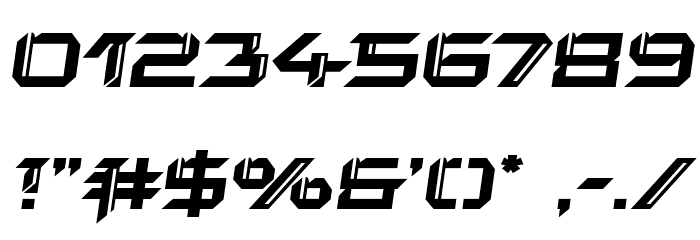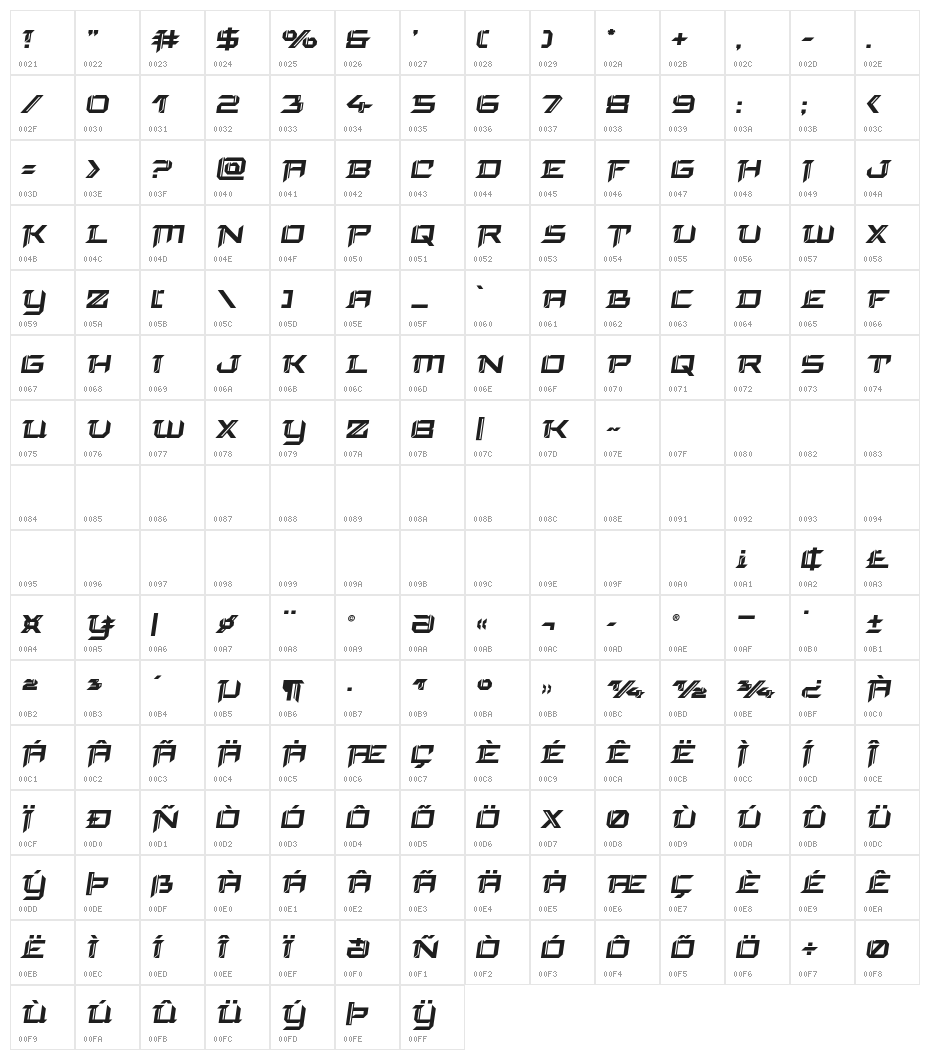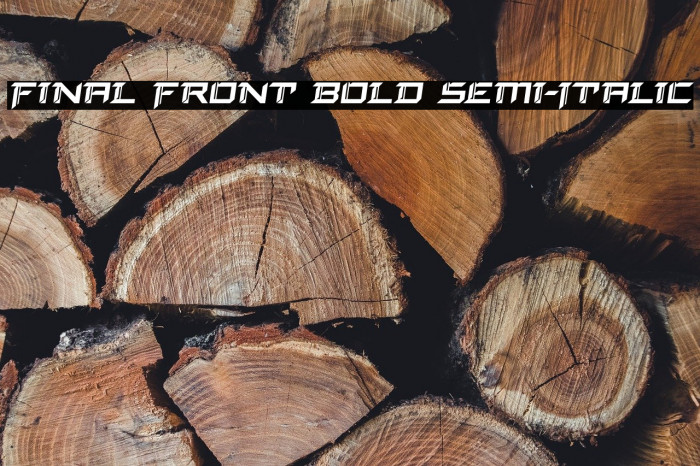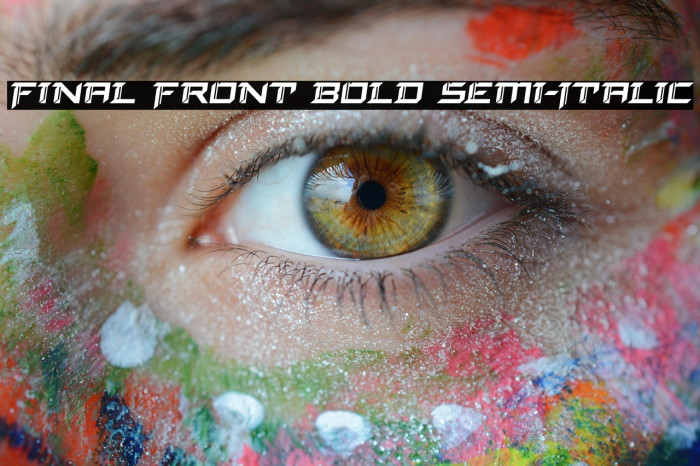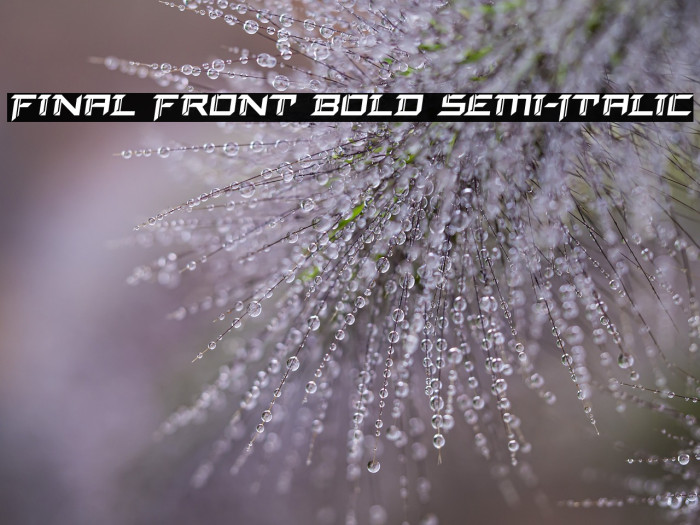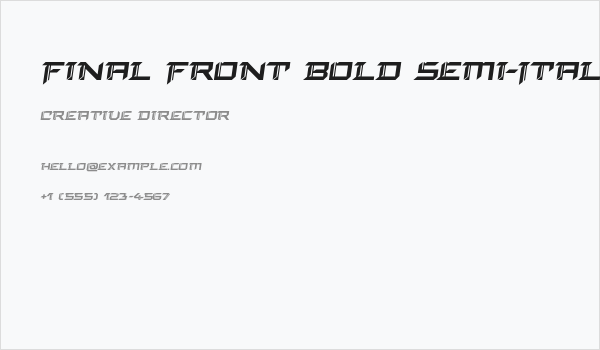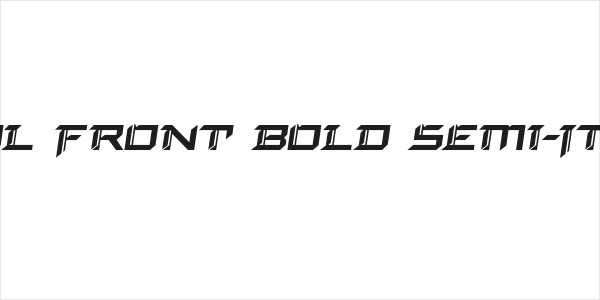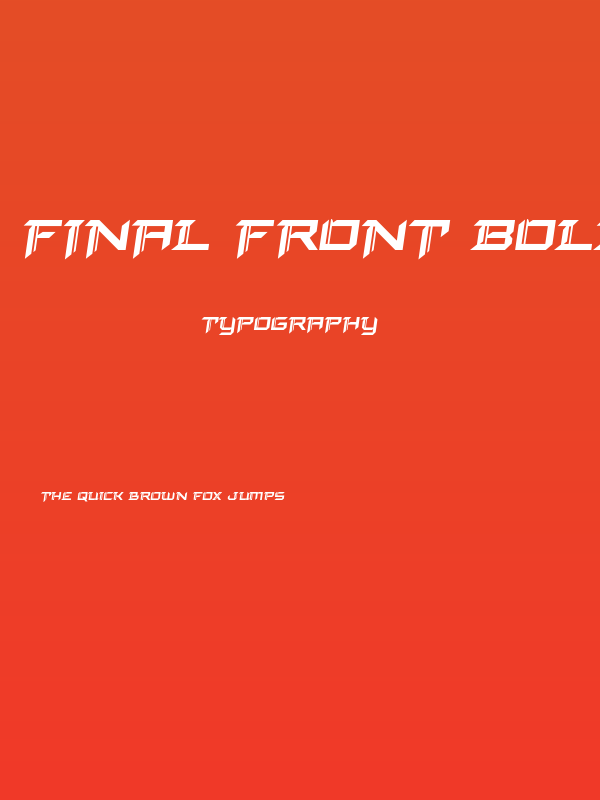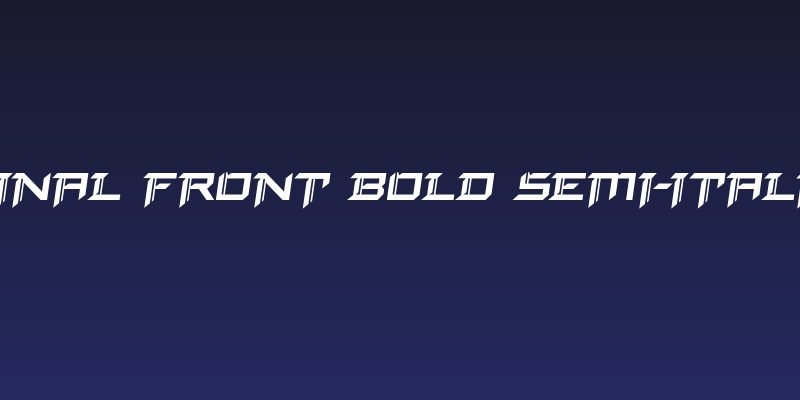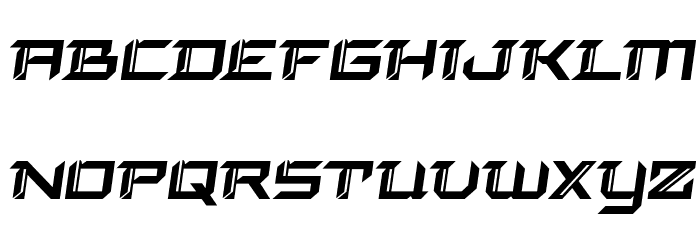
Final Front Bold Semi-Italic Font
Final Front Bold Semi-Italic Description
This font features a bold and semi-italic style with a futuristic and dynamic appearance. The characters are angular and sharp, with a distinct geometric design that gives them a modern and edgy look. The uppercase and lowercase letters maintain a consistent style, with the uppercase being more prominent and the lowercase slightly more compact. The numbers and special characters follow the same design principles, ensuring uniformity across all glyphs. The font's unique style makes it stand out, suitable for projects that require a strong visual impact.